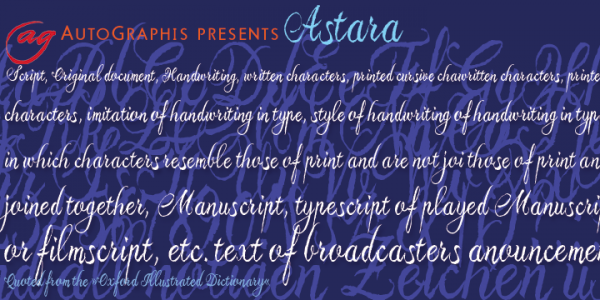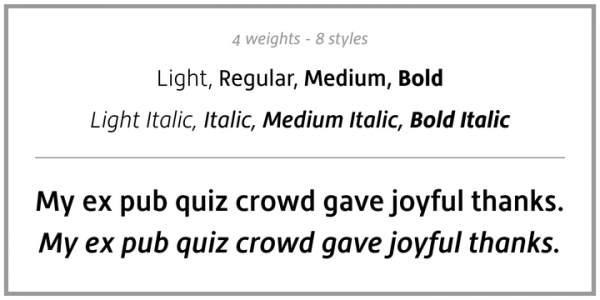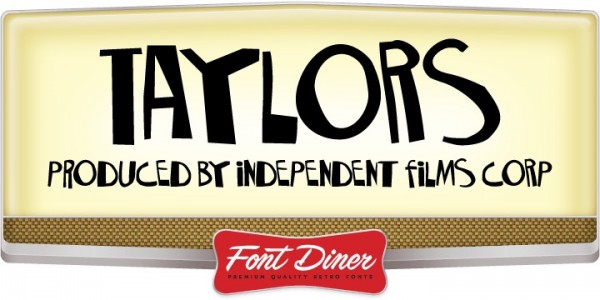
Botanica
Botanica is a brush written font, inspired by current trends in font design. The font with its two types of initial and final swashes, plus elegantly connected mid word swashes looks a bit fairytale-like and it’s among the most popular and classic choices for wedding invitations and children’s books. Letters look great both separately and … Read more
congenial
Congenial font is a sans-serif typeface built as understated, highly legible complement to Laura Worthington. Congenial retains some hand-drawn elements, visible particularly in the heavier weights . At lighter weights the strokes become almost monoline. Download Congenial font details Publisher: Laura Worthington Released: May 21, 2015 Price: $39.50
Astara
Astara can be defined as a decent swinging script. It looks graceful and works best in short headlines. The best thing about the typeface is the elegance it portrays when the lines overlap. The inscriptions smoothing into each other makes the font truly enigmatic. Get Astara font on MyFonts Astara font details Publisher: Autographis Released: Aug … Read more
Tosca
Tosca is an amazing font. It is very attractive, elegant, and highly ornamental typeface armed with 730 glyphs! You may put a second set of capital letters in the places of the smallcaps. This capability of the font makes it highly suitable for creative writers. Hence, you can type the word in lowercase and then choose … Read more
Taylors
Taylors font reminds of a poster for a classic movie. It is undoubtedly the hottest nightspot Taylors of Milwaukee. The flow of the font, pointed ends and the curves at the right places make the font a perfect choice for magazine titles, movie posters, an event ad, and the like. Get Taylors font on MyFonts Taylors … Read more
Tar Teen
Tar Teen is a font based on the designer’s calligraphy. The creation of the font was originally oriented towards creating posters and display boards at crossroads between art nouveau letterings and steampunk lettering. Hence, the font is easily visible on a front store suring the 1920s era. Interestingly, you would also see the typeface on the … Read more
Hedley New
Hedley New is an eye catching reconstructed relative of Hedley. It was originally released in the year 2004. The super clean, innovative, simple charm of the typeface has helped it develop into a stylish, sparkling, and highly functional sans. Since the typeface is fully re-drawn, using new spacing and kerning, it works well for those … Read more